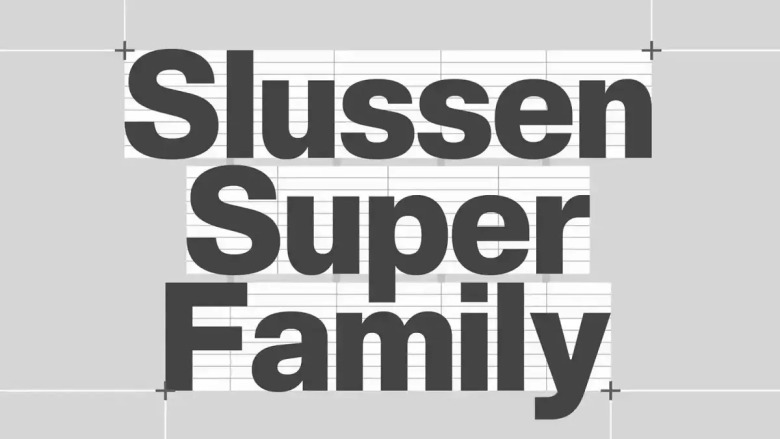
Slussen Super Font
Slussen Super is a grotesk sans serif font this versatile typeface will definitely catch readers’ Attention. The inspiration of Slussen came from the rhythm and organisation in construction cites. It has a mechanical skeleton and the forms are largely geometric. At small sizes, these simple lines will blur together when applied to digital displays; while at display size they will not be as prominent on the workpiece for your client.
It’s got some bones in there. Character skeletons are more angular than other neo-grotesque counterparts but that’s okay by us! paired with flat endings and a small different in letterforms. Among other things, Slussen has been designed to be useful for a very wide variety of uses, ranging from small captions all the way up to huge titles.
The full family total is 104 different styles, ranging in 6 widths and an additional set of optical expanded forms for all width variations – that’s a total of 8 weights. This ensured every form can be fitted where it in support – whether printed or on screen In addition there is a Stencil version that alludes to the idea of building sites, perfect for creating your own lettering tools and Monospace also available which together with this one completes Slussen being a robust type system. Slussen includes all Latin European Languages with over 1040 glyphs.
Slussen Super Sans Serif Font